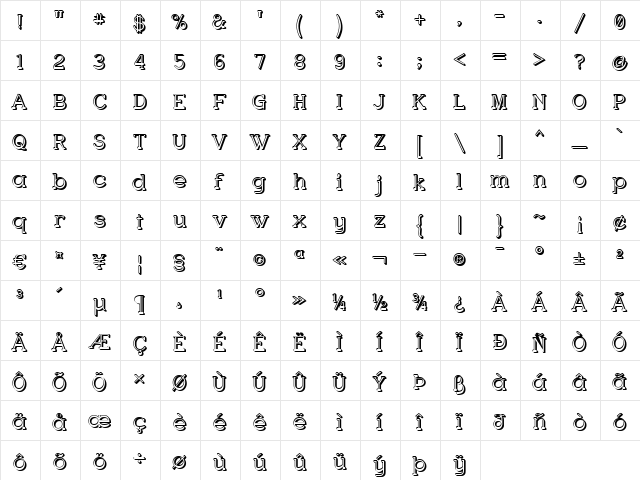
Charrington Posh Regular
| Designer | Graham Meade |
Design Context for Charrington Posh Typeface
Charrington Posh offers clean, dependable letterforms without strong stylistic allegiance, making it a practical choice for designers who need flexibility.